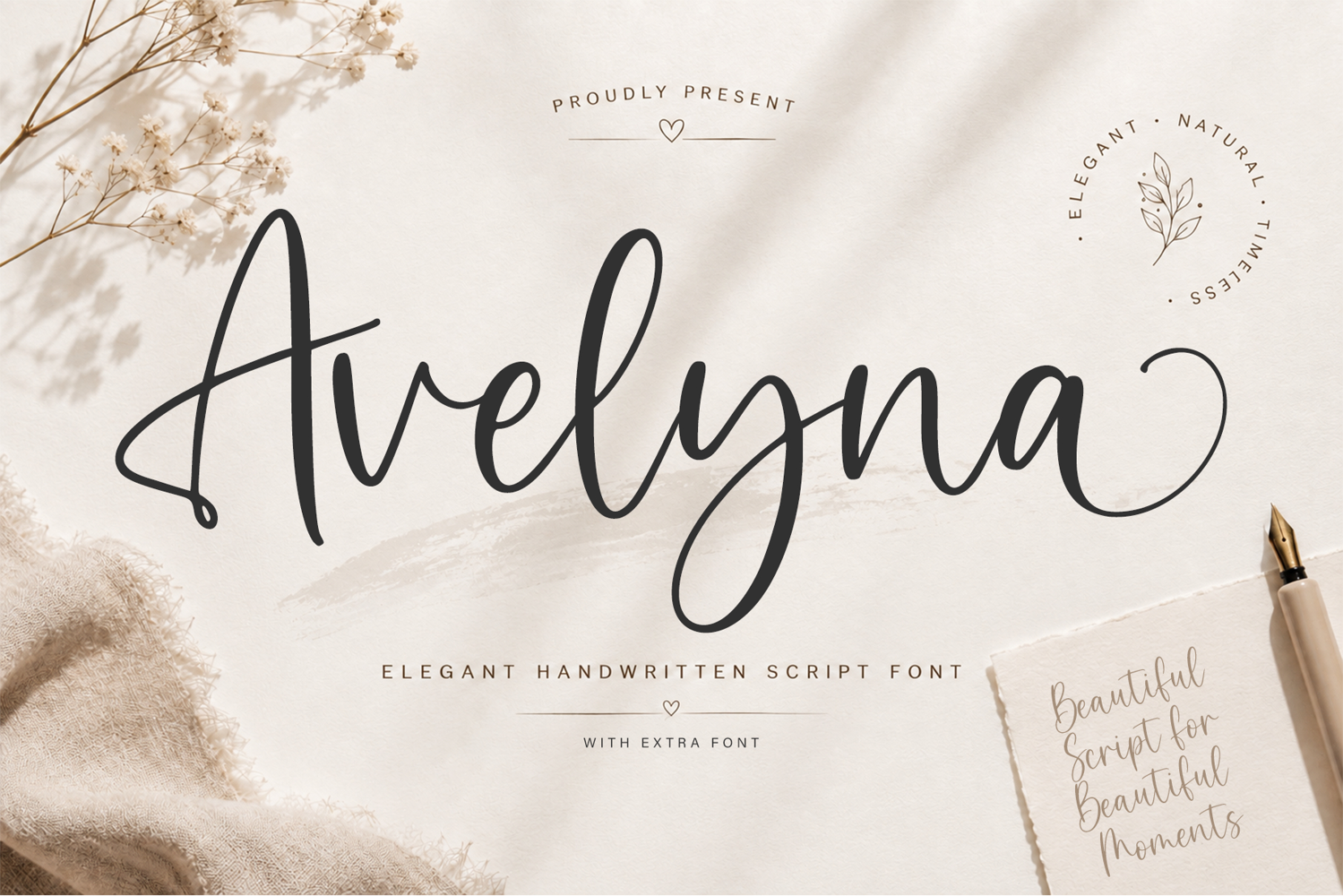
An elegant handwritten script font with a graceful, flowing style and natural lettering rhythm. Its refined strokes and expressive swashes create a sophisticated yet warm appearance, making it a versatile choice for modern creative designs.
Perfect for wedding invitations, branding, logos, greeting cards, stationery, quotes, packaging, social media graphics, apparel, and other elegant design projects. The font also includes an extra font to add variety and complementary styling to layouts.
A beautiful combination of elegance, fluidity, and handcrafted character for designs that need a stylish and timeless handwritten touch.